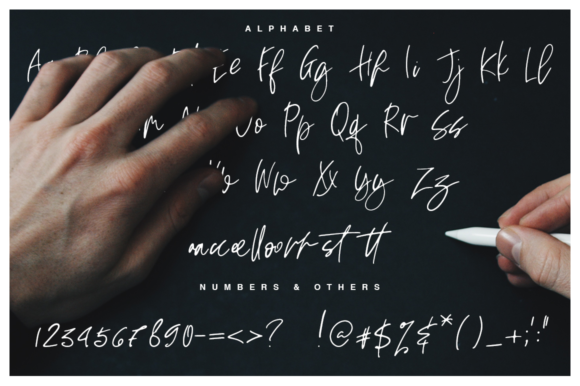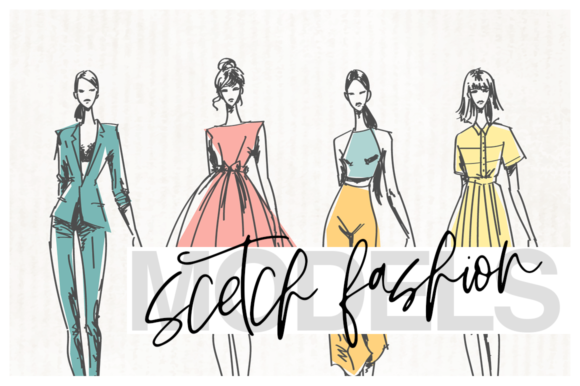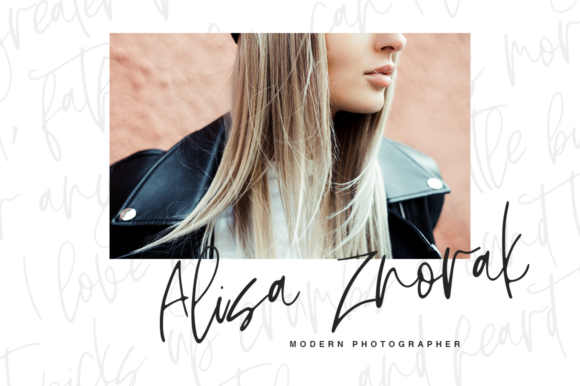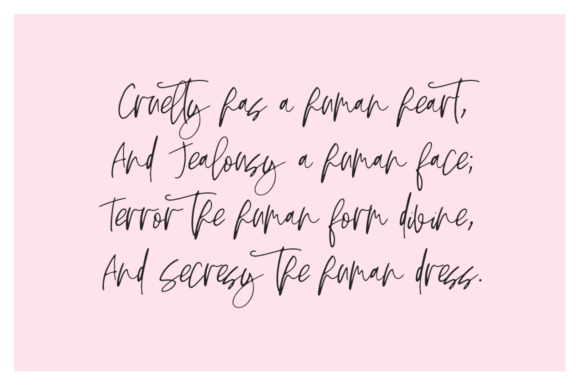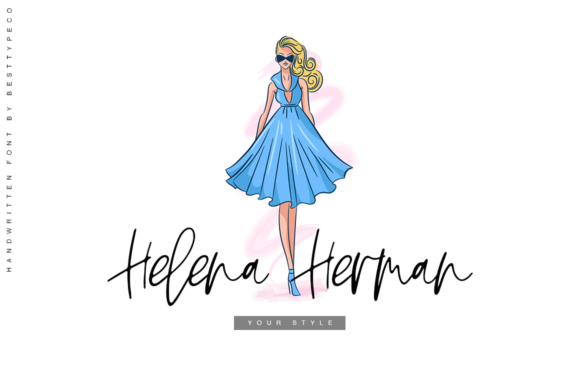
Introduction to Master & Margarita Font
As you sit at your desk, surrounded by scattered papers and empty coffee cups, the blank page staring back at you can be daunting. But then, like a spark of inspiration, you remember a font that can breathe life into your creative project – the Master & Margarita Font. This stunning, handmade calligraphy font is the perfect companion for designers seeking to elevate their work.
With its charming character and high-quality design, the Master & Margarita Font is a valuable resource for any designer looking to add a touch of sophistication to their work. Whether you’re working on a logo, brochure, or website, this font is sure to make your text stand out from the crowd. And the best part? It’s available for free download, complete with a transparent background for seamless integration into your design.
Discover why the Master & Margarita Font is a game-changer for designers and how it can take your creative projects to the next level.
Key Features of Master & Margarita Font
- Unique blend of Cyrillic and Latin scripts, perfect for creative projects that require a touch of Russian flair.
- High-quality design resource ideal for various applications, including book titles, headings, and logos.
- Transparent background option allows for seamless integration with any design element.
- Master & Margarita Font comes in 6 styles, including Regular, Bold, Italic, and Bold Italic, offering versatility for different design needs.
- Designed with a high resolution of 300 DPI, ensuring crisp and clear typography in various print and digital applications.
- Perfect for designers working on projects related to literature, philosophy, or Russian culture, as well as for those seeking a unique and creative font for their design work.
Honest Review: Master & Margarita Font
As a designer, I was excited to dive into the Master & Margarita Font, a unique and intriguing typeface that promises to elevate any creative project. And I’m happy to report that it does just that!
What works well is the font’s versatility, ✨ with a wide range of styles and weights available for free download. This makes it an excellent resource for designers working on various projects, from editorial to branding.
Another notable feature is the transparent background, which allows for seamless integration into any design. This is especially useful when working on complex compositions or layering text over images.
- Wide range of styles and weights available
- Perfect for creative projects, from editorial to branding
One limitation is that the font may not be suitable for all types of designs, particularly those that require a more straightforward, sans-serif font. Additionally, some users may find the font’s unique style to be too ornate for certain applications.
Overall, I’m impressed with the Master & Margarita Font. It’s a high-quality design resource that offers a lot of creative possibilities, and I’m happy to recommend it to fellow designers.
Master & Margarita Font
Designing with Master & Margarita Font
The Master & Margarita Font is a high-quality design resource ideal for creative projects that require a unique touch. With its elegant and sophisticated style, this font is perfect for designers looking to elevate their work.
Getting the Most Out of Master & Margarita Font
To get the most out of this font, experiment with different font sizes, colors, and combinations to find the perfect look for your project. Additionally, use the font in conjunction with other design elements to create a cohesive and visually appealing design.
The Master & Margarita Font is ideal for a variety of projects, including:
- Book covers and book titles
- Magazine and newspaper headlines
- Website and social media graphics